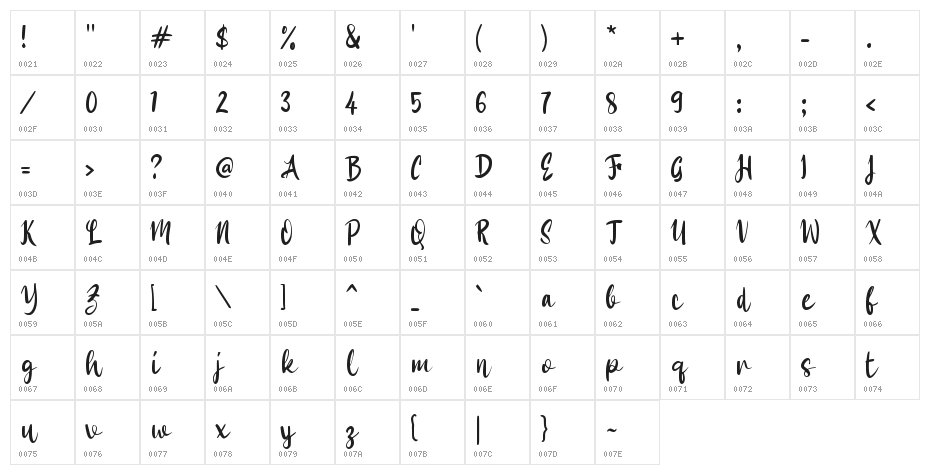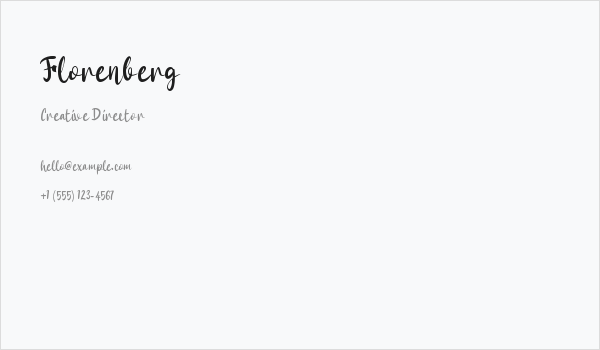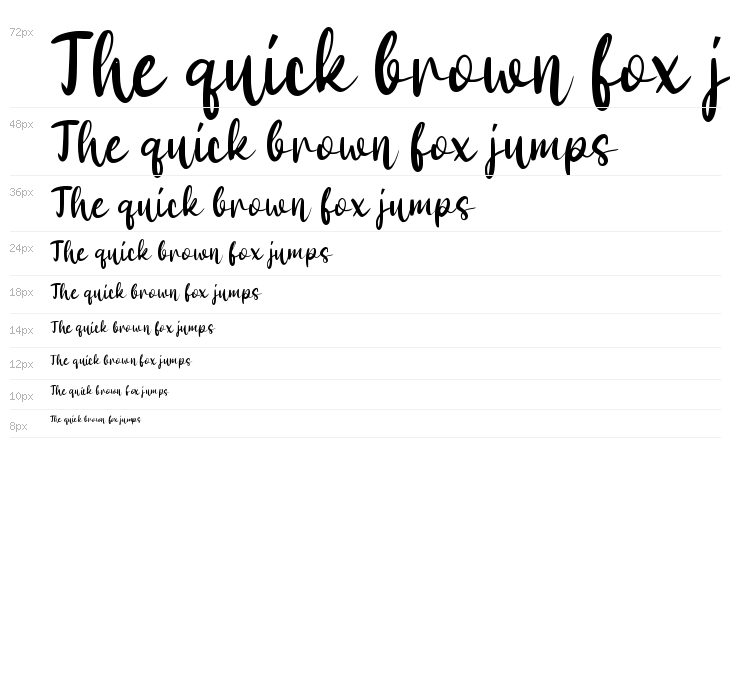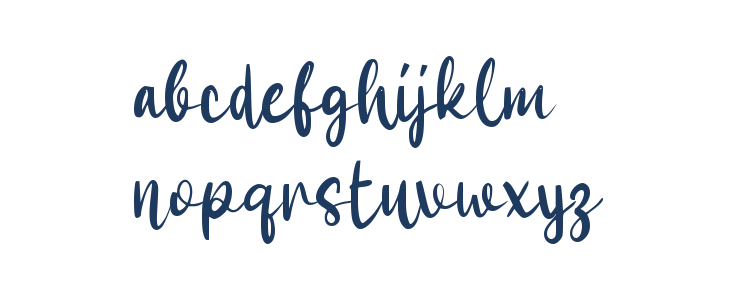
Florenberg Font
Florenberg Description
This font features a dynamic and flowing script style, characterized by its bold and expressive strokes. The uppercase letters exhibit a sense of movement with their sweeping curves and varied line thickness, creating a lively and energetic appearance. The lowercase letters maintain this fluidity, with elegant loops and connections that enhance the handwritten feel. The numerals are consistent with the overall style, offering a playful yet legible design. Special characters are integrated seamlessly, adding to the font's versatility. This font's unique charm makes it suitable for creative and artistic projects.